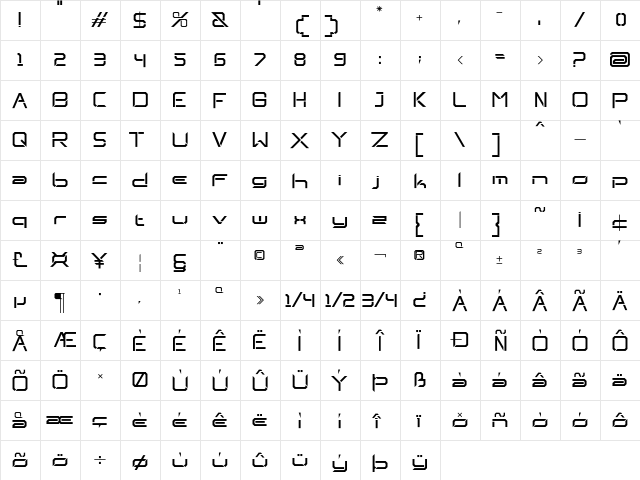
Neptunes Regular Font Preview
Neptunes Regular
Neptunes Regular Font Details
Design Context for Neptunes Typeface
Neptunes takes a measured approach to typography — its balanced proportions and neutral character make it a reliable workhorse for both digital and print work.